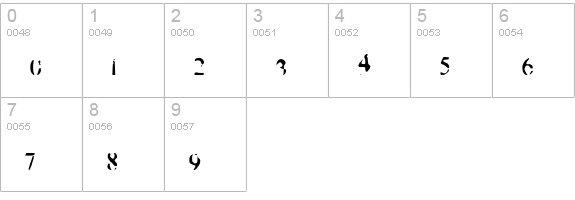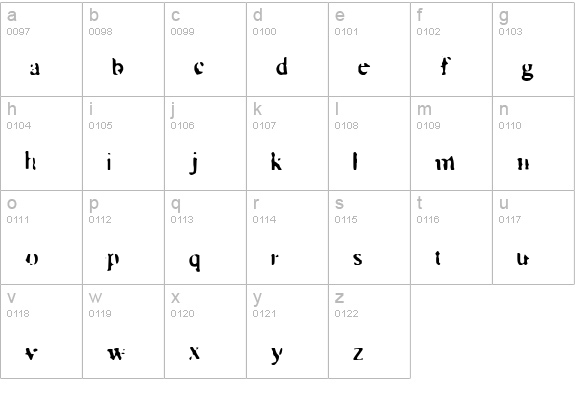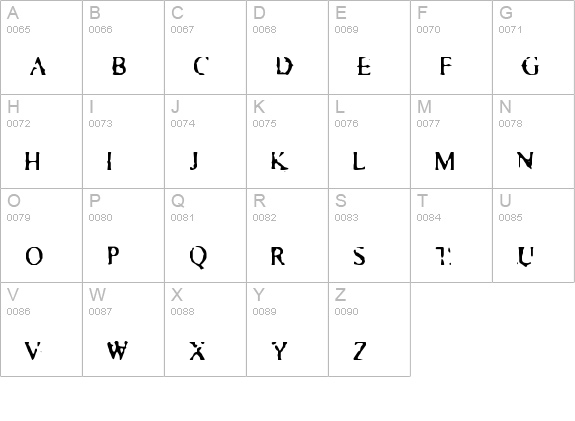
Introducing the magnificent Times New Zoo-man font, a captivating typeface that effortlessly merges the elegance of Times New Roman with the untamed spirit of the animal kingdom. This extraordinary font is a true masterpiece, meticulously crafted to bring a touch of wildness and sophistication to your designs. Times New Zoo-man font is a symbol of the perfect harmony between the refined world of typography and the raw beauty found in nature. Its graceful curves and strong, bold strokes evoke a sense of power and majesty, while its intricate details and carefully crafted serifs reflect a level of craftsmanship rarely seen. What sets Times New Zoo-man font apart is not only its impeccable design, but also its availability. We are proud to announce that this remarkable font is freely available to download at FontsMarket.com. Yes, you read that right – free! Now, you can unleash your creativity and explore the endless possibilities of this exceptional typeface without any limitations. Imagine the impact Times New Zoo-man font can have on your projects. Whether you're designing a logo for a wildlife conservation organization, creating stunning posters for a zoo event, or even crafting eye-catching invitations for an animal-themed party, this font is the perfect companion to bring your vision to life. With Times New Zoo-man font, you have the ability to transport your audience to a world where elegance meets untamed nature. Its versatility allows it to effortlessly adapt to a variety of design styles, making it suitable for both traditional and contemporary projects. The timeless beauty of this font ensures that it will never go out of style, making it a valuable asset for any designer. So why wait? Embrace the wild side of typography and experience the wonders of Times New Zoo-man font. Download it now for free at FontsMarket.com and let your imagination run wild. Unleash the power of this extraordinary typeface and watch as your designs come to life with unparalleled beauty and sophistication.